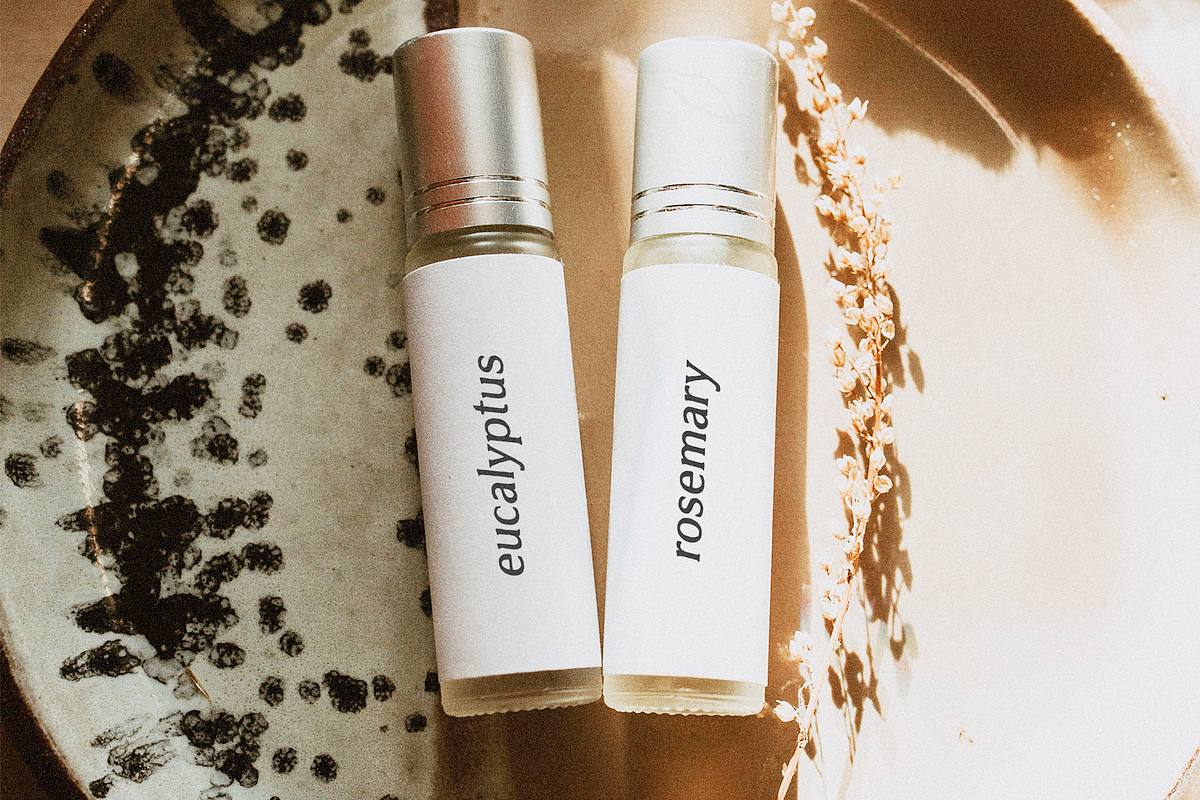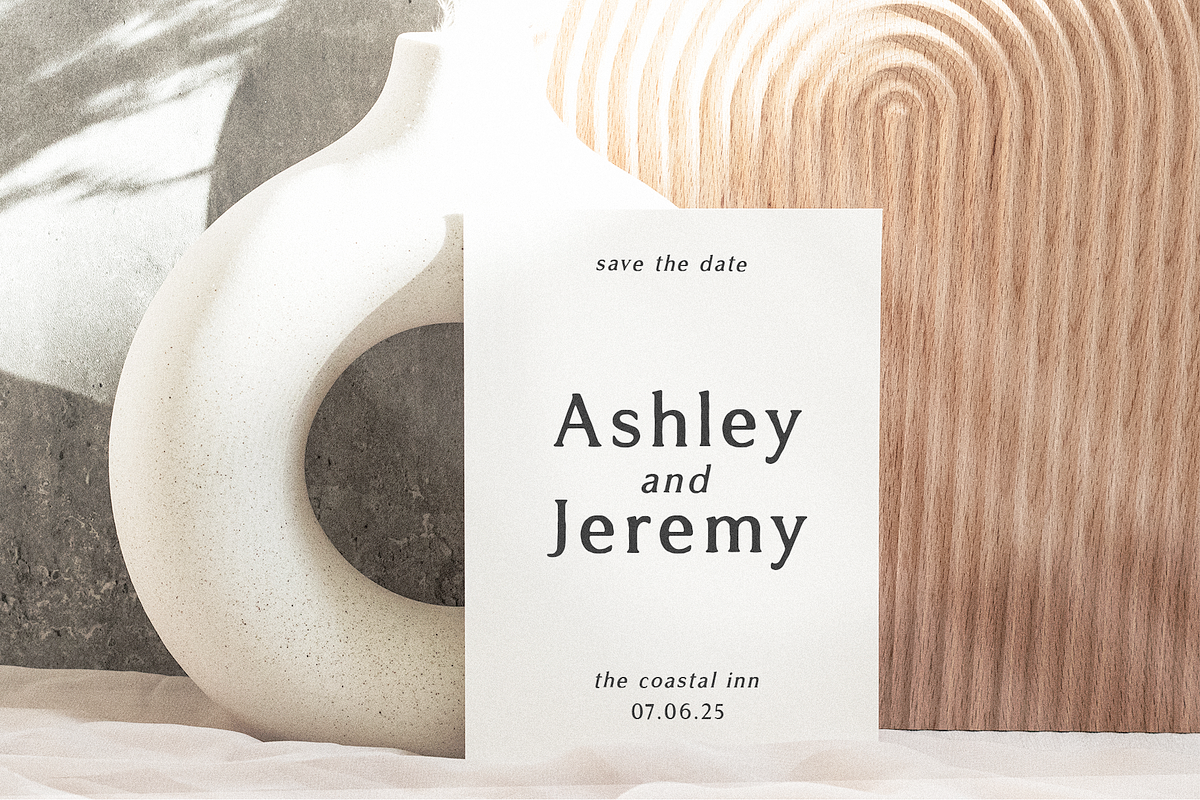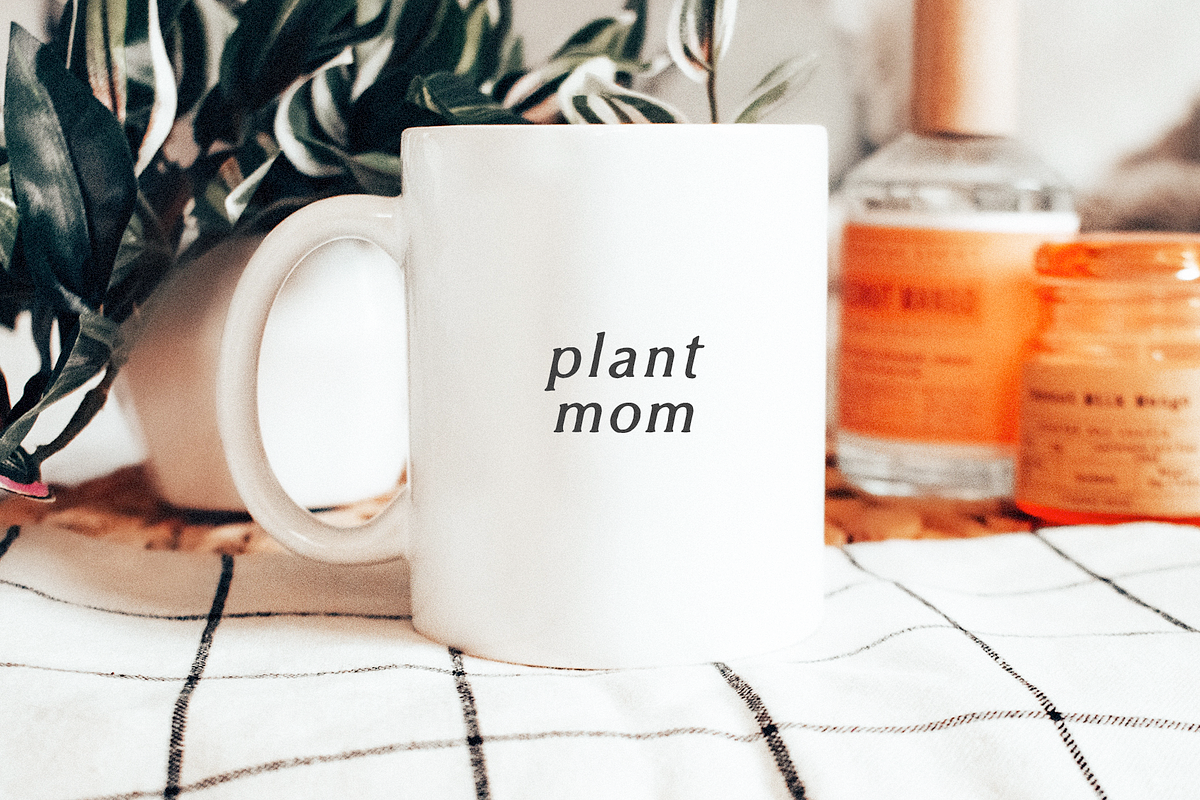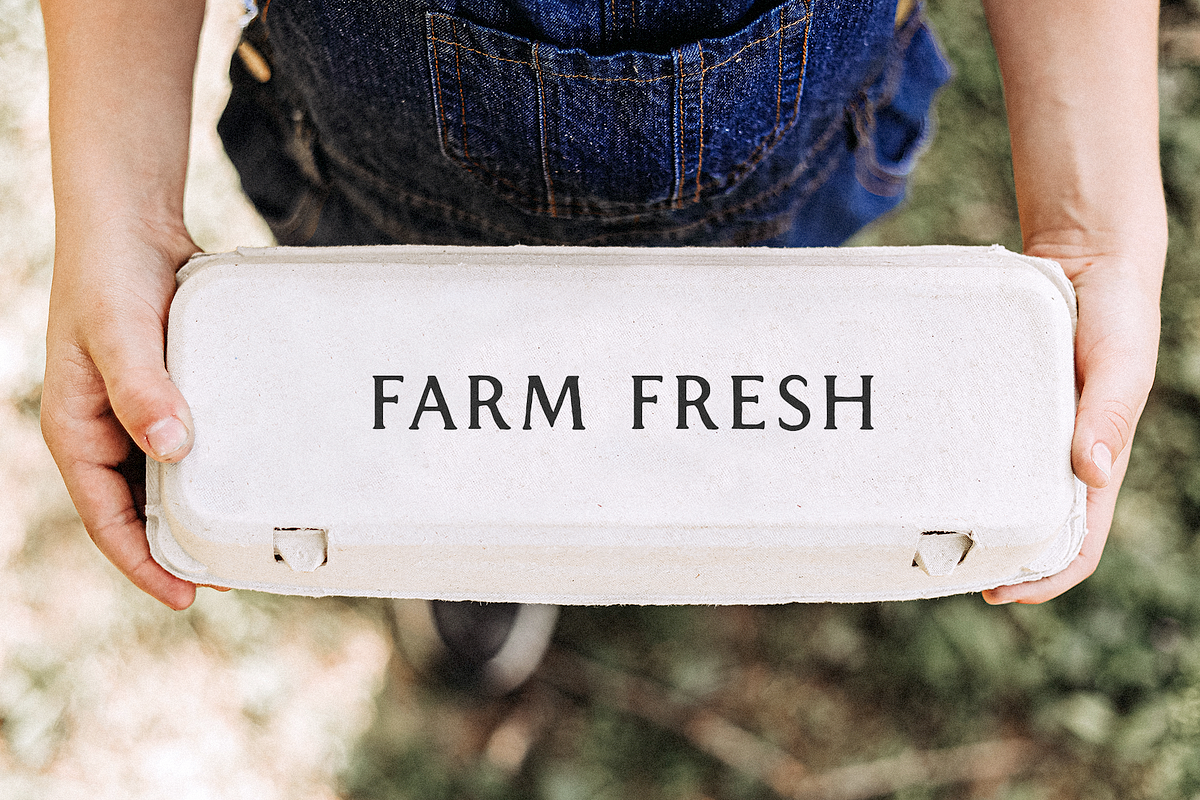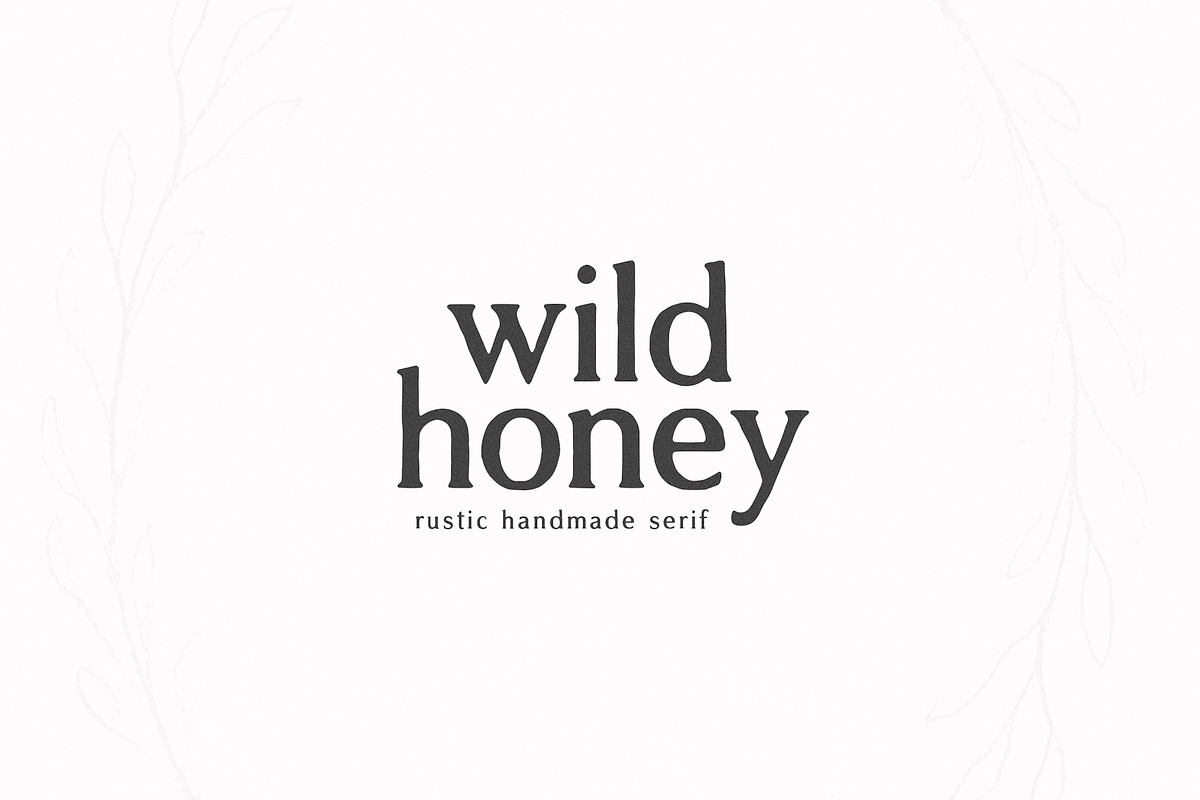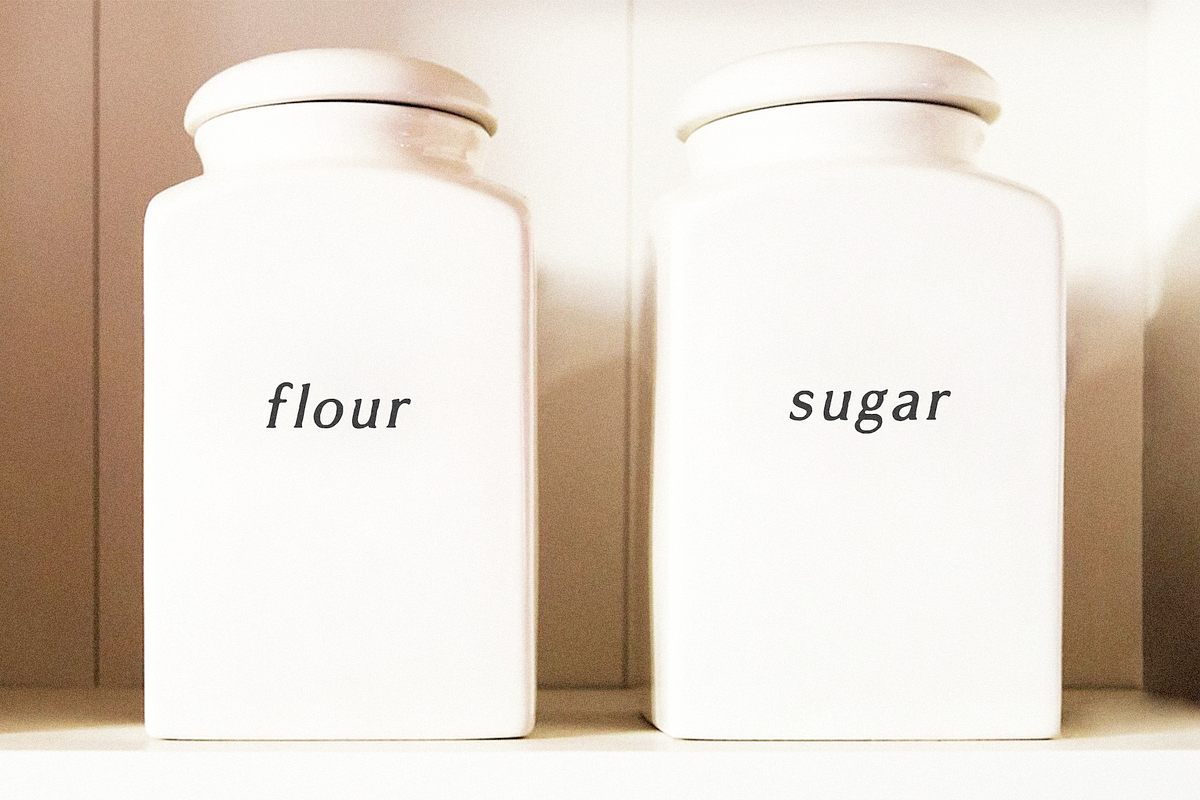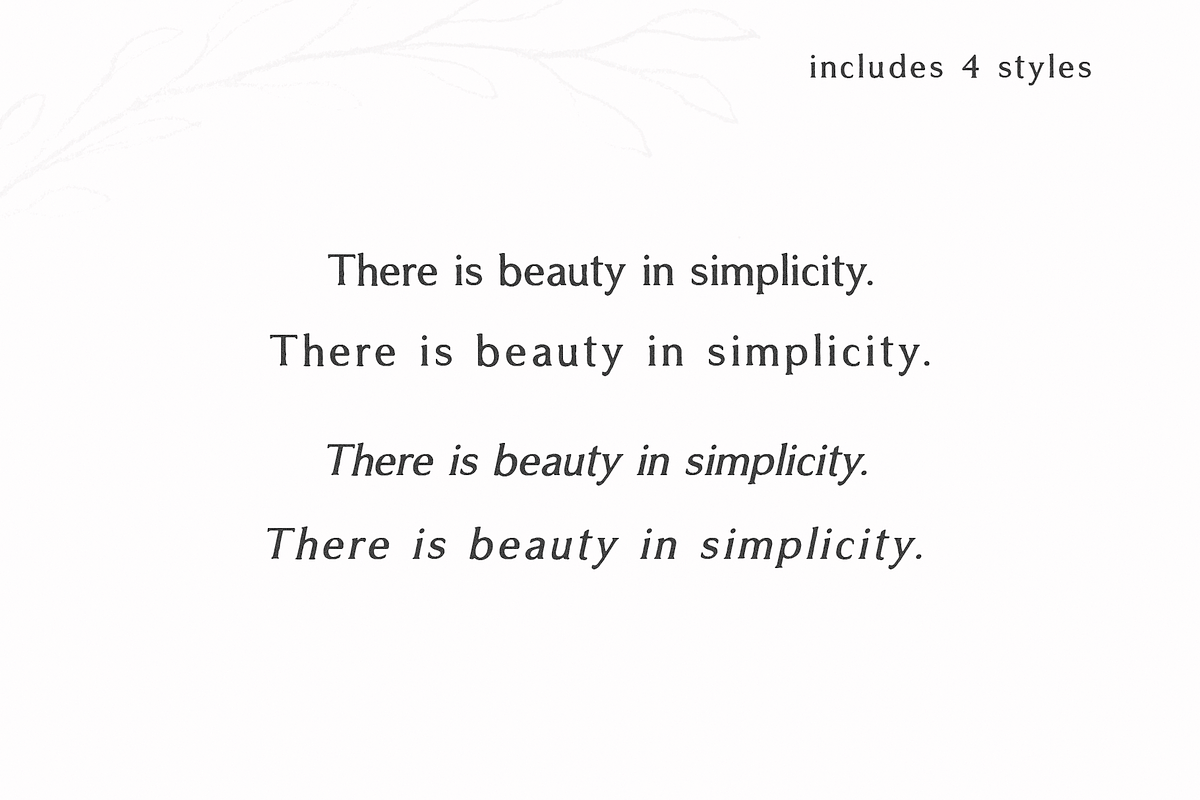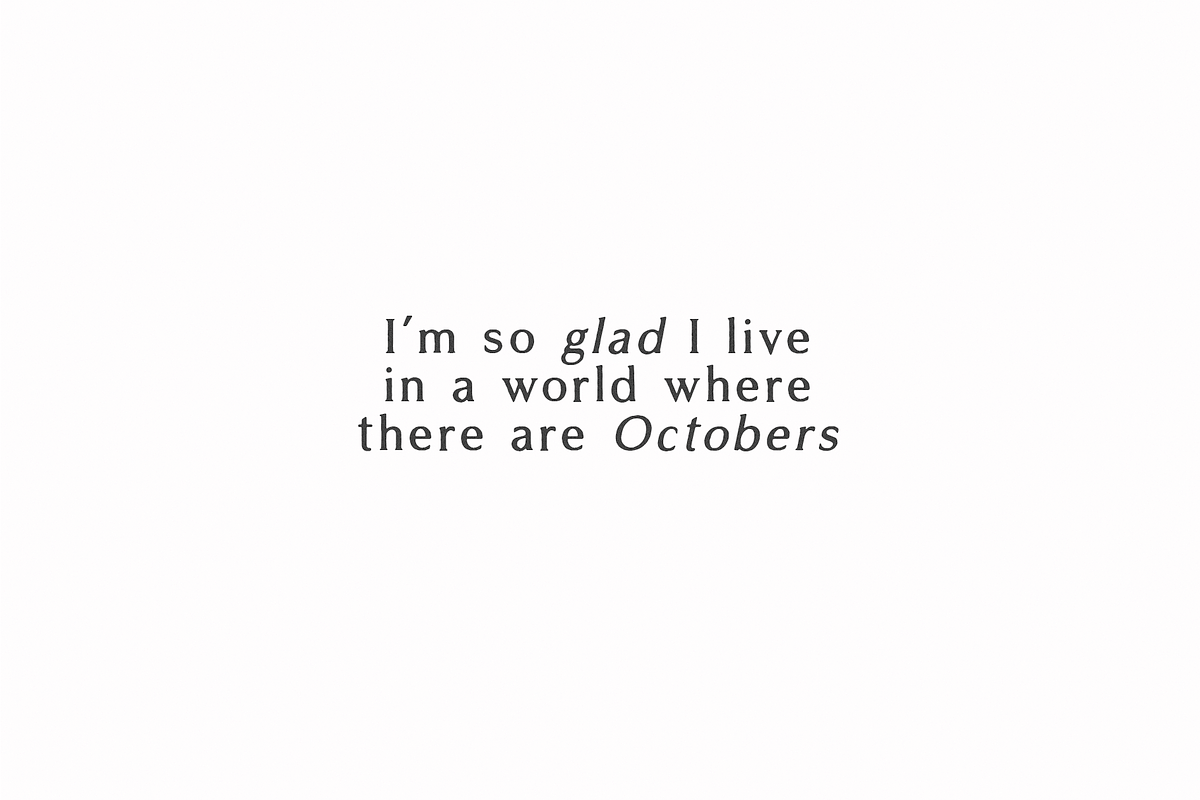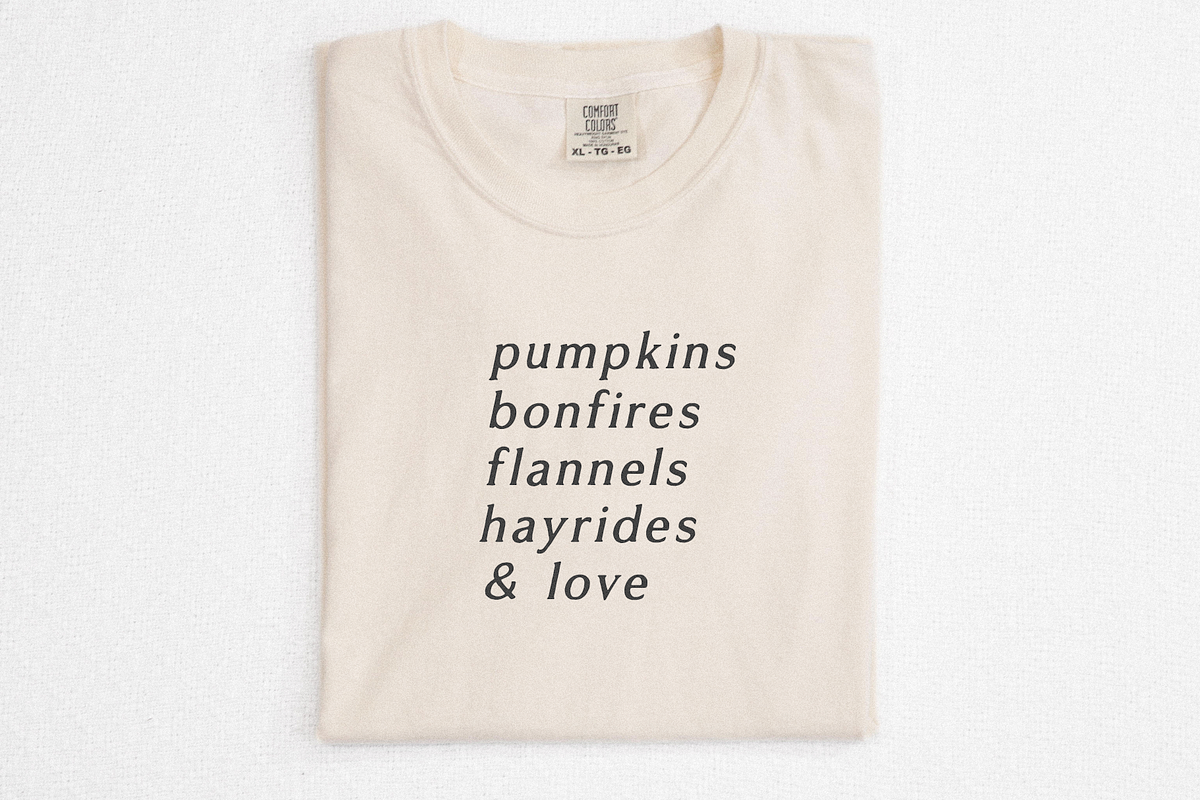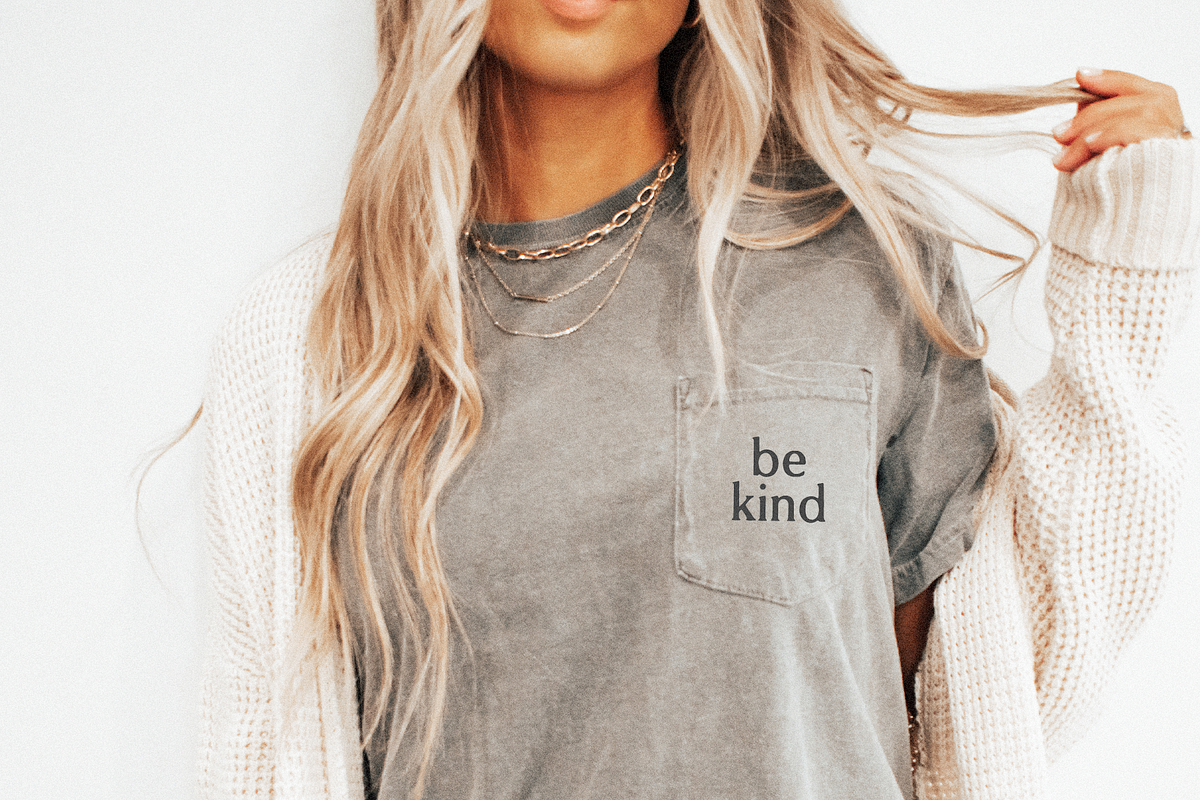
Wild Honey | Rustic Serif Font
Wild Honey is a rustic handmade serif font.
This font is perfect for logos, shirts, decor, wedding invitations, farmhouse designs, crafts, stickers, pantry labels, branding, social media, quotes and more!